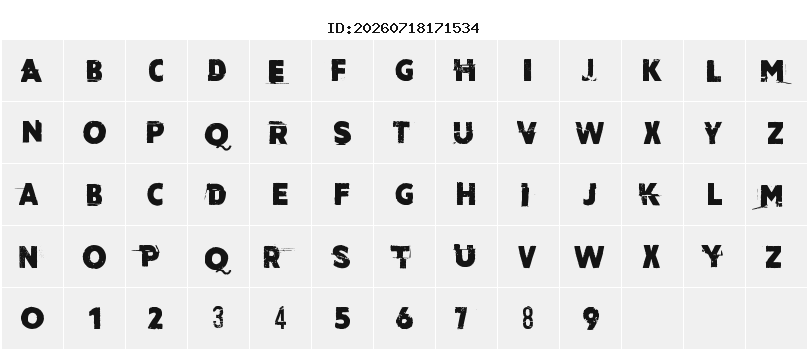
• Font Name: Cut the crap
• Designer: junkohanhero
About Cut the crap.ttf
Cut the crap.ttf is a modern, elegant sans-serif font designed for ultimate readability and visual harmony. Perfect for branding, headlines, web design, and print materials.